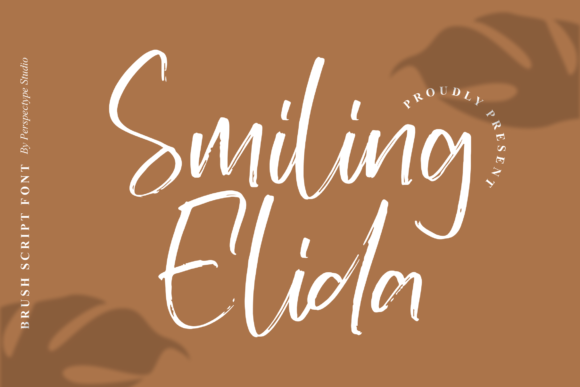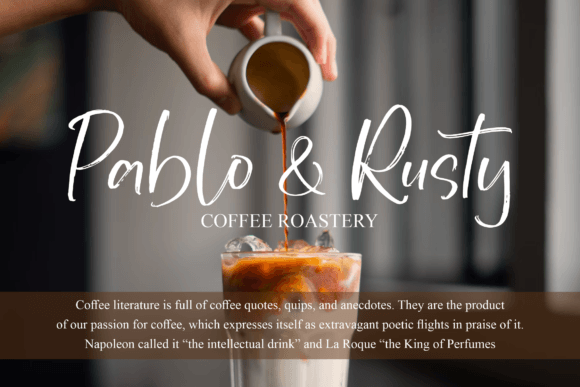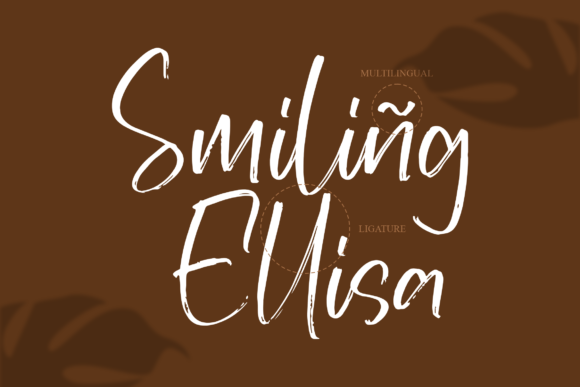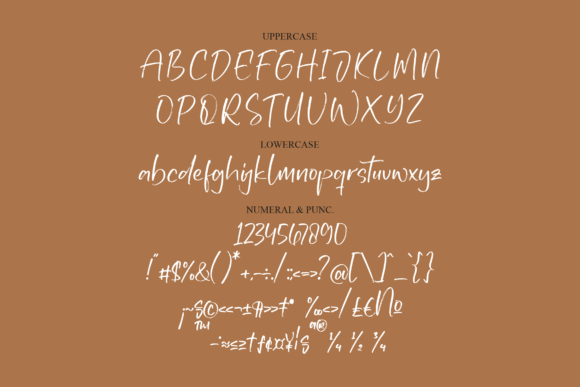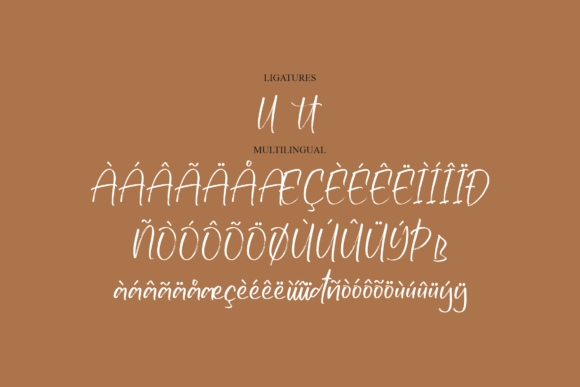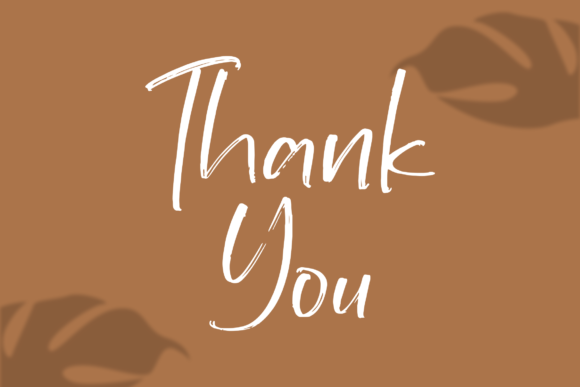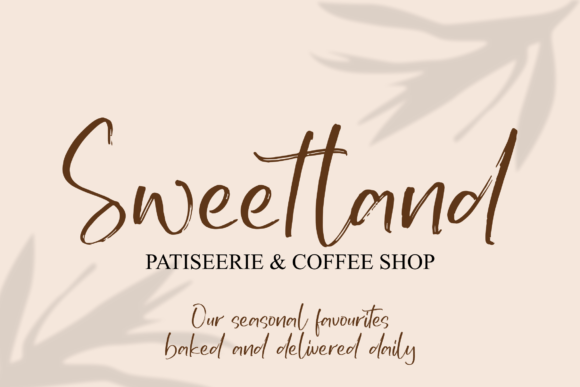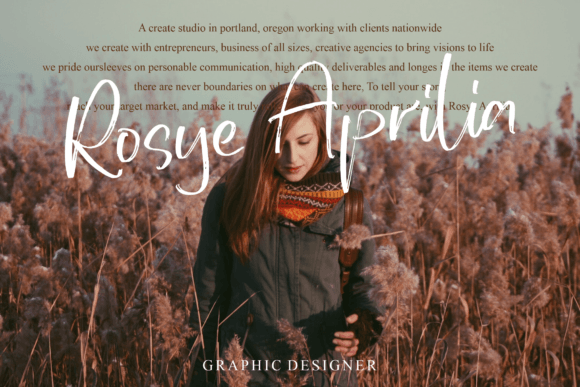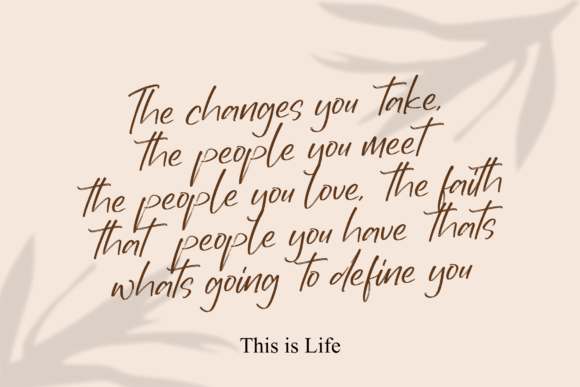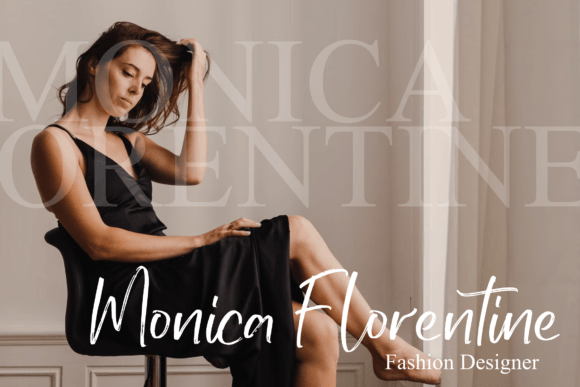
Smiling Elida Font
About Smiling Elida Font
“Smiling Elida” is a font that exudes both charm and elegance, creating a delightful and refined handwritten touch. This font is exceptionally suited for a variety of design applications, making it an excellent choice for wedding invitations, thank you cards, quotes, greeting cards, logos, business cards, and any other design project that benefits from a touch of handcrafted elegance.
The beauty of “Smiling Elida” font lies in its ability to seamlessly combine charm and sophistication. Its exquisite script style is captivating, adding a sense of grace and personalized flair to your designs.
For wedding invitations and thank you cards, “Smiling Elida” brings an aura of elegance and charm. It ensures that these special occasions are celebrated with a touch of refinement, making them even more memorable.
In quotes and greeting cards, this font elevates your messages with its handwritten elegance. It conveys sentiments in a beautiful and heartfelt manner, leaving a lasting impact on the recipient.
When it comes to logos and business cards, “Smiling Elida” offers a unique and memorable choice. Its sophisticated script can be used to create logos that are both distinctive and timeless, ensuring that your brand identity exudes a sense of refinement and personalization.
In summary, “Smiling Elida” is more than just a font; it’s a design asset that effortlessly combines charm and elegance. Its versatile style and ability to convey refined handwritten aesthetics make it suitable for a wide range of projects. Embrace “Smiling Elida” and let its charm and elegance enhance your creative endeavors, leaving a lasting impression on your audience.